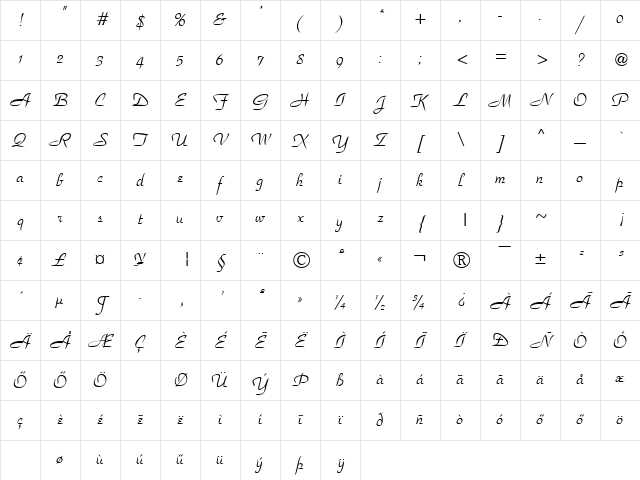
HParadise Normal
Design Context for HParadise
HParadise is a composed and adaptable typeface that performs quietly and consistently across a wide range of design contexts.